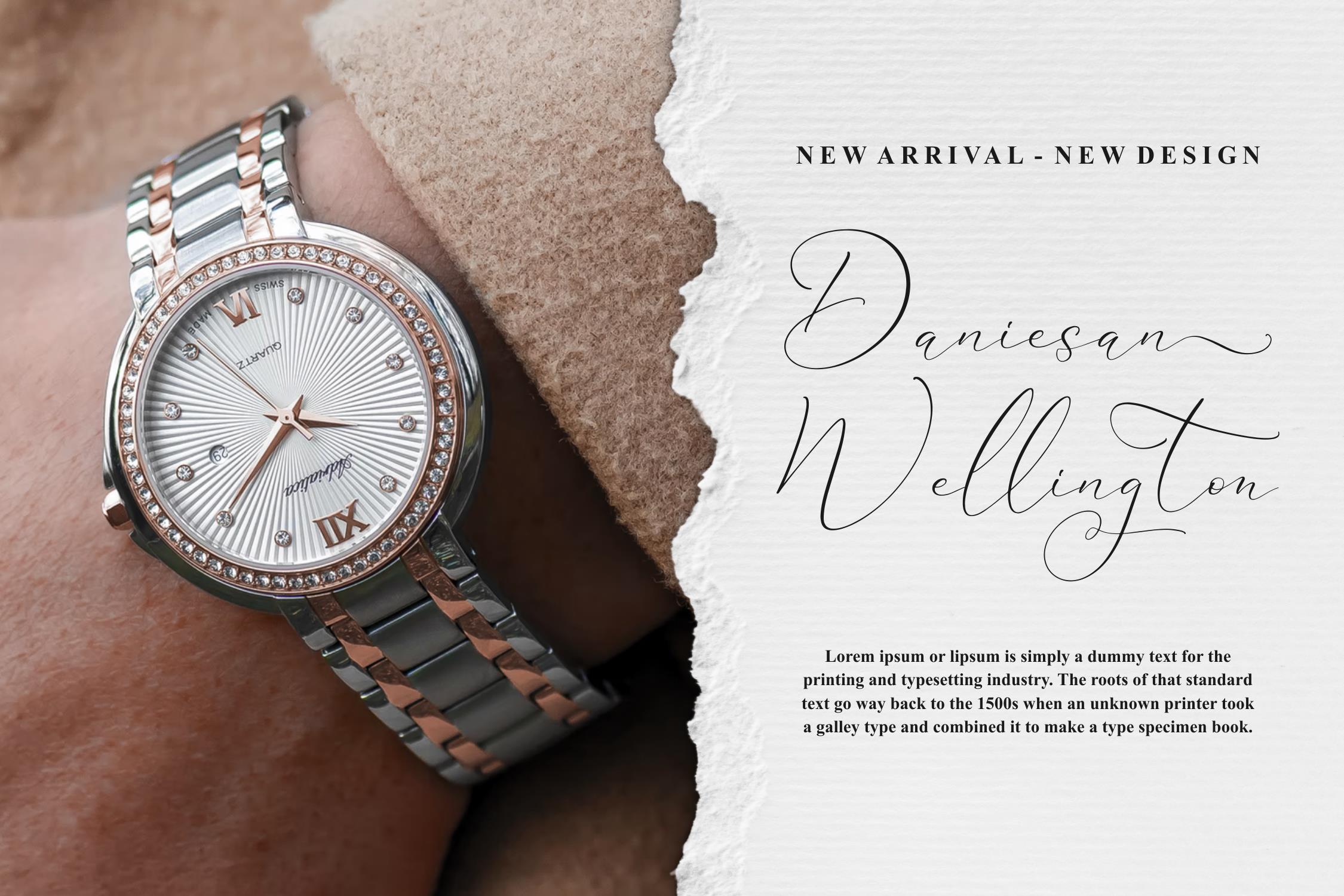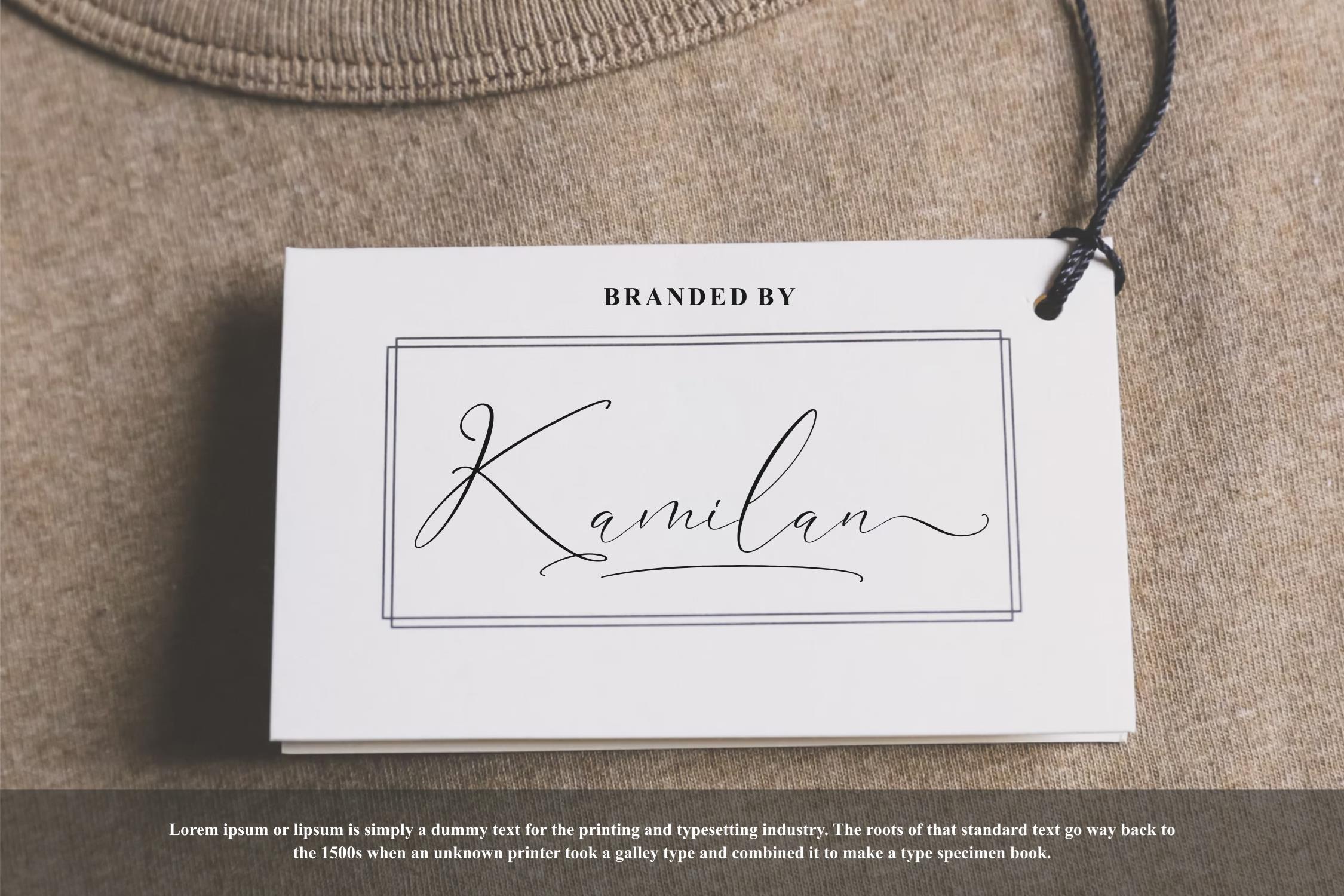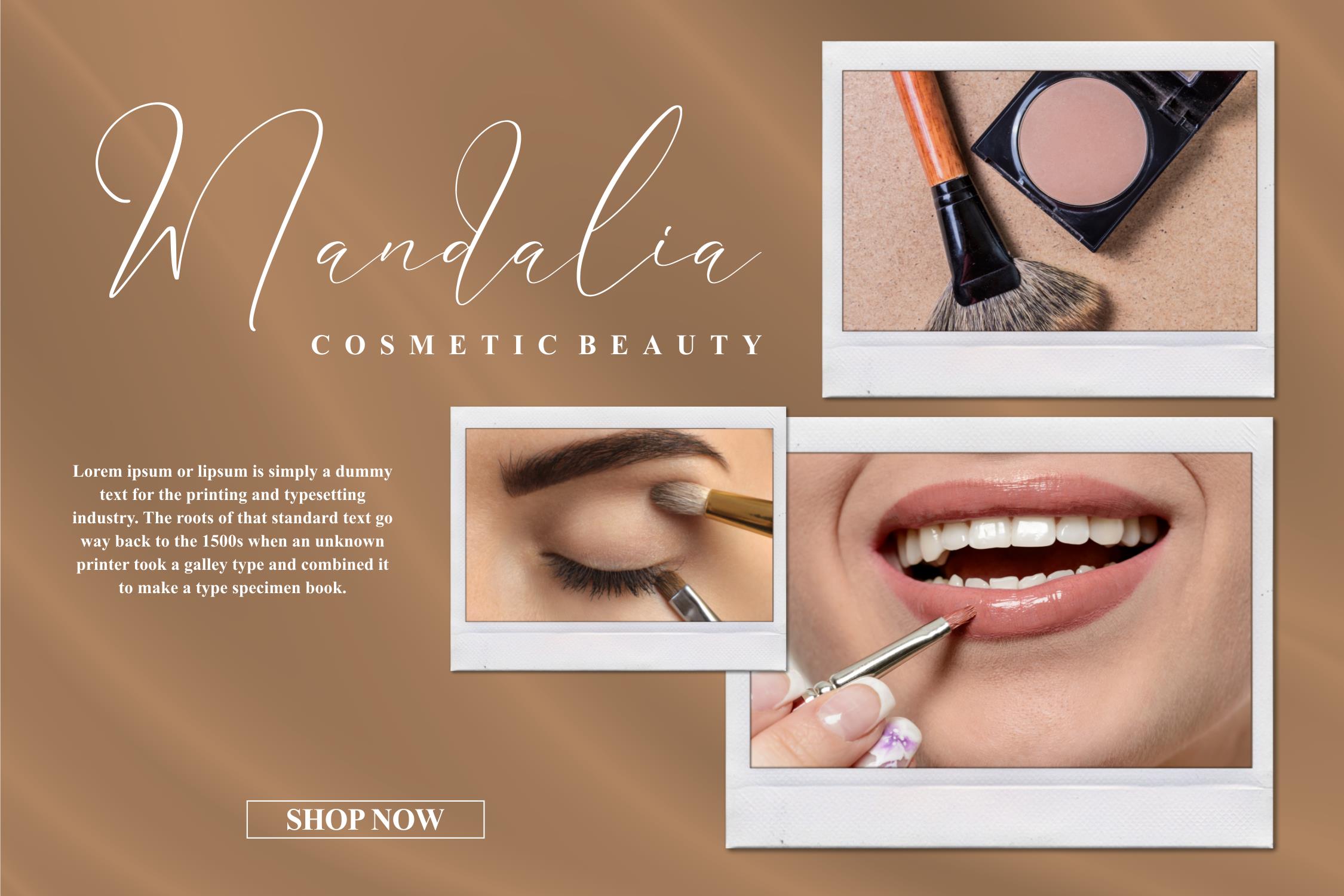
Falminga Charia Font
Falminga Charia Script Font
This is a beautiful script font, suitable for any projects such as: logos, branding projects, homeware designs, product packaging, mugs, quotes, posters, shopping bags, t-shirts, book covers, name card, invitation cards, greeting cards, label, photography, watermark, special events, and all your other lovely projects that need a beautiful script taste.